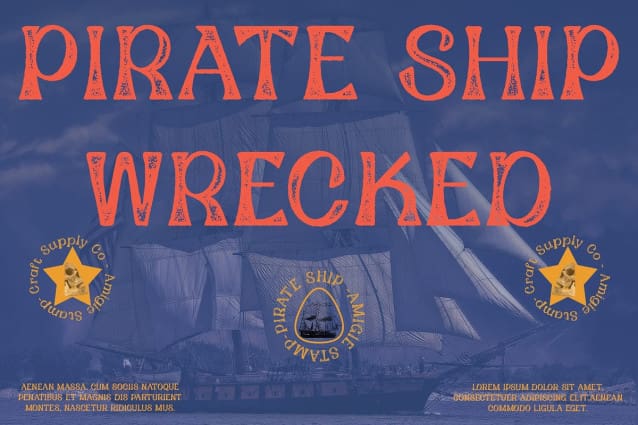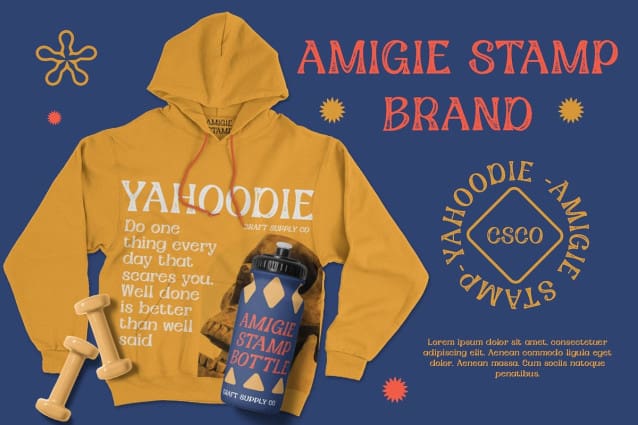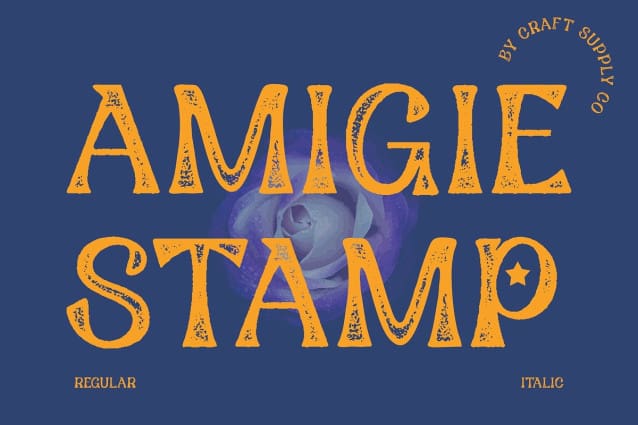
Amigie Stamp Font
Amigie Stamp Font: Adding Funky Vibes to Your Designs. Funky Display Font Amigie Stamp is a funky display font that injects playful vibes into your designs. Its unique style sets it apart from conventional fonts, making it perfect for eye-catching displays.
Stamped Effect With its stamped effect, This font exudes a sense of authenticity and nostalgia. Each character appears as if it’s been stamped onto the page, adding texture and visual interest.
Ideal for Display Purposes Designed with display in mind, This font shines in headlines, posters, logos, and other prominent elements. Its funky nuances make it stand out and grab attention instantly.
Versatile Application Despite its funky appearance, This font is versatile and adaptable. Whether used in digital or print projects, it adds a touch of personality and quirkiness to any design.
Funky, Authentic, and Versatile This font is more than just a font; it’s a statement. With its funky vibes and stamped effect, it brings a unique charm to your designs, making them memorable and engaging.